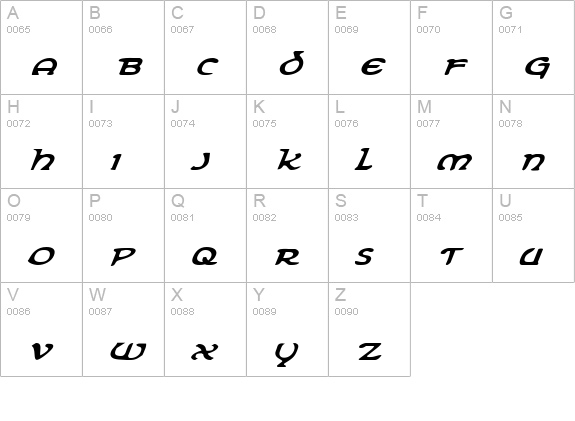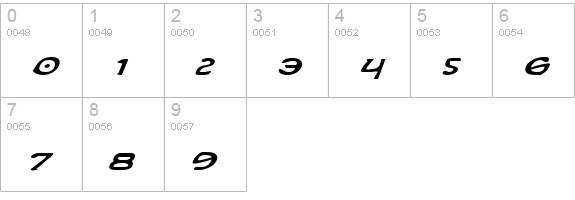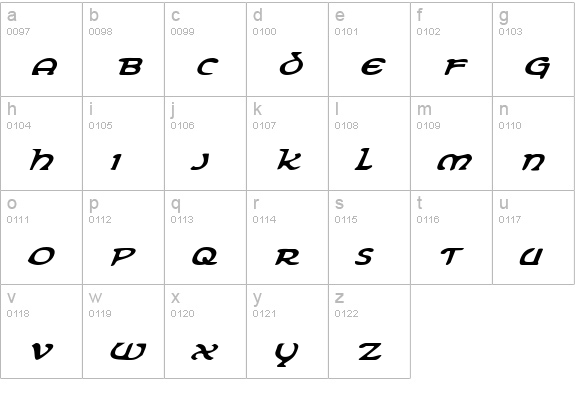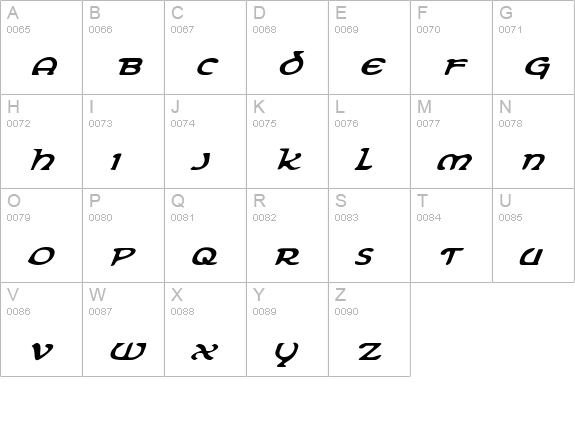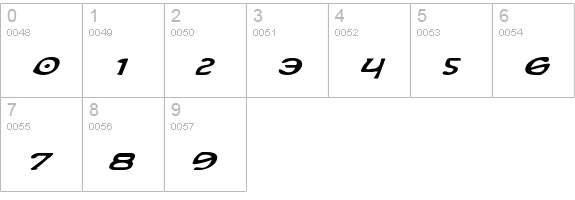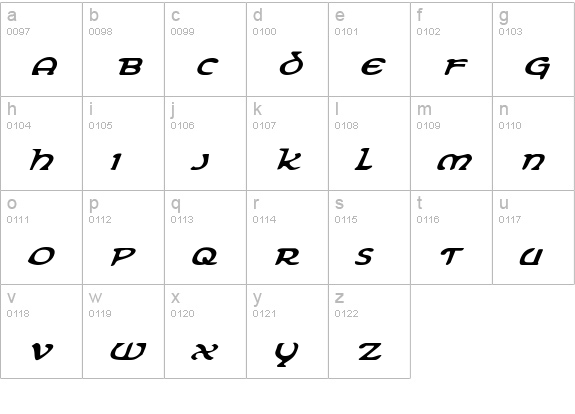
Erin Go Bragh ExpandItalic font is a stylish and elegant typeface that exudes sophistication and charm. Its unique italicized design adds a touch of flair to any text, making it perfect for projects that require a touch of class. The elongated and expanded letterforms give this font a sleek and modern look that will make your designs stand out. What makes Erin Go Bragh ExpandItalic font even more appealing is that it is available for free download at FontsMarket.com. This means you can easily access this beautiful font without any cost, making it a fantastic choice for designers looking to add a touch of elegance to their projects without breaking the bank. Whether you're working on invitations, posters, or branding materials, Erin Go Bragh ExpandItalic font is sure to elevate your designs to the next level. Download this stunning font today and see the difference it can make in your creative projects.